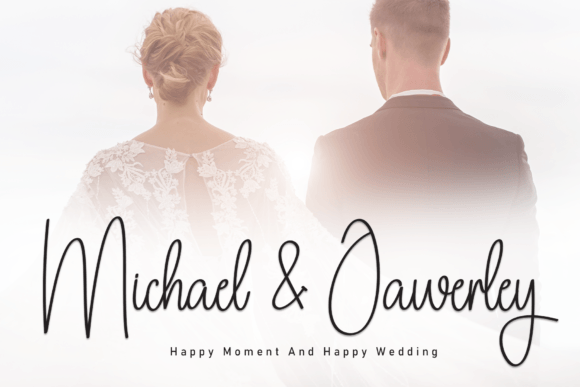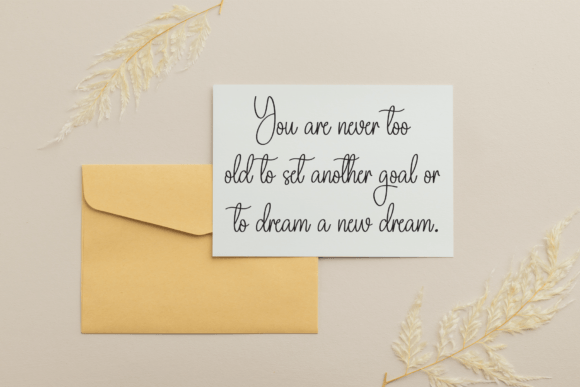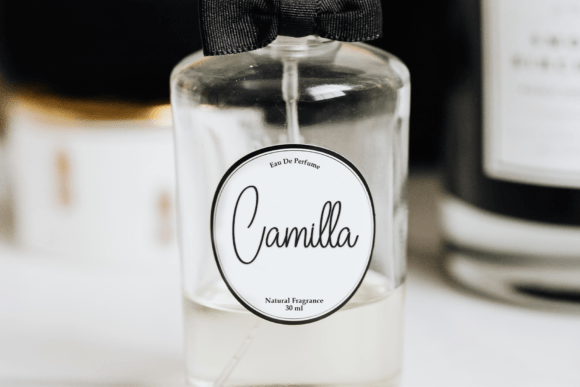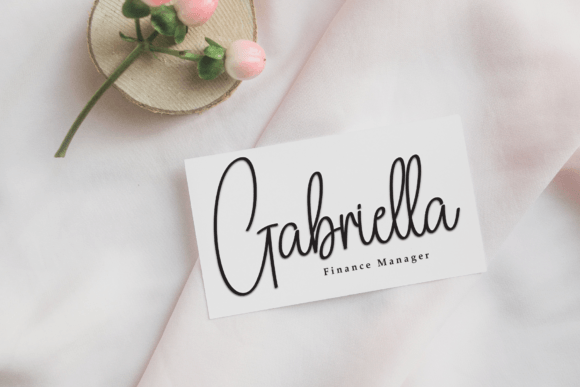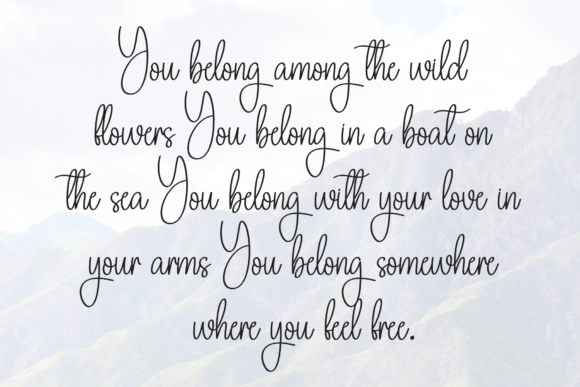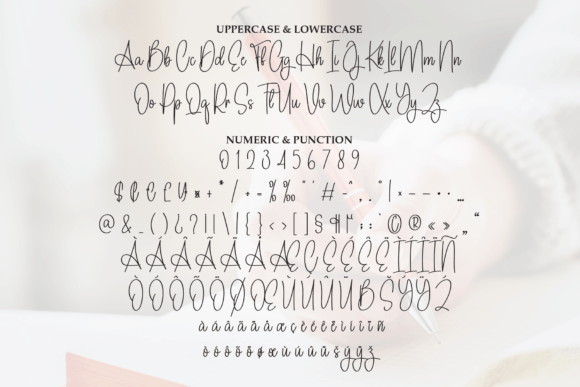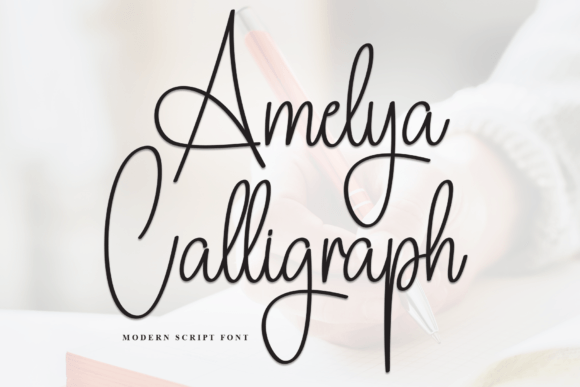
The Magic of Amelya Calligraph Font: Elevate Your Designs with Elegance
I’ll never forget the moment I stumbled upon the perfect font for a client’s wedding invitation project. I had been searching for what felt like an eternity, trying out font after font, but nothing seemed quite right. That was until I discovered Amelya Calligraph Font. Its flowing, handwritten elegance instantly captured the essence of the occasion, and I knew I had found the one. If you’re a designer, crafter, or creative hobbyist looking for a font that exudes sophistication and charm, you’re in the right place.
- ✅ Elegant and sophisticated: Amelya Calligraph Font is perfect for projects that require a touch of luxury and refinement.
- ✅ Highly versatile: From wedding invitations to branding, packaging, and more, this font adapts seamlessly to various design applications.
- ✅ Unique character: The font’s distinctive style ensures your designs stand out from the crowd.
- ✅ Easy to read: Despite its ornate nature, Amelya Calligraph Font remains surprisingly legible, even at smaller sizes.
A Few Quirks to Keep in Mind 🤔
- ⚠️ Limited use in body text: While Amelya Calligraph Font is beautiful, it’s best suited for headings and titles. For longer blocks of text, consider pairing it with a more straightforward font.
- ⚠️ May not be suitable for very small sizes: The font’s intricate details can become lost when scaled down too far. Use it at larger sizes to truly appreciate its beauty.
One of the standout features of Amelya Calligraph Font is its extensive range of OpenType features and glyphs. These allow you to customize your text with:
- Ligatures: Combine letters for a more elegant look.
- Stylistic alternates: Swap out characters for a fresh perspective.
- Glyphs: Add decorative elements, such as swashes and ornaments.
The Story Behind Amelya Calligraph Font
Amelya Calligraph Font was inspired by the art of traditional calligraphy. Its creator sought to capture the elegance and sophistication of handwritten calligraphy, while making it accessible for digital design. The result is a font that feels both timeless and modern.
| What makes Amelya Calligraph Font unique? | Its elegant, flowing script and extensive range of OpenType features and glyphs make it a standout choice for designers. |
| Is Amelya Calligraph Font difficult to read? | No, despite its ornate nature, Amelya Calligraph Font remains surprisingly legible, even at smaller sizes. |